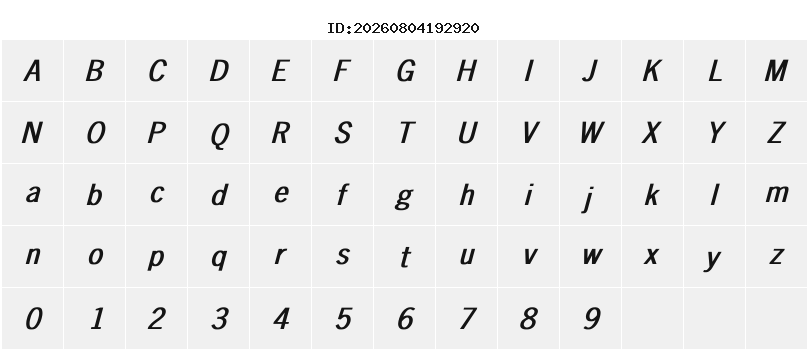
• Font Name: News-Gothic
• Full Font Name: News-Gothic Bold Italic
• PostScript Name: News-Gothic-BoldItalic
About News-Gothic.ttf
News-Gothic.ttf is a modern, elegant sans-serif font designed for ultimate readability and visual harmony. Perfect for branding, headlines, web design, and print materials.